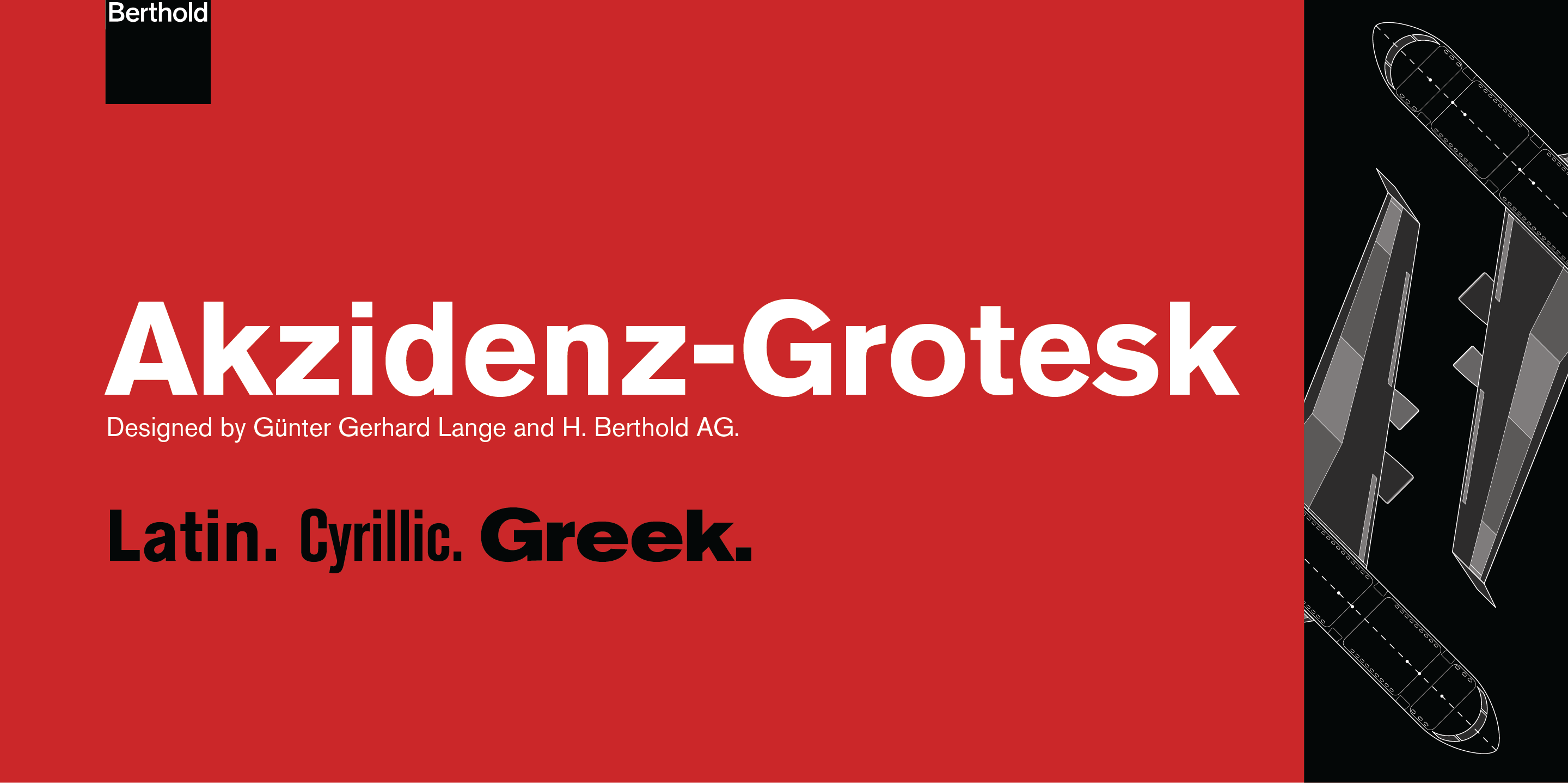
Akzidenz-Grotesk W1G Font Free Download is a modern sans-serif typeface with a classic, timeless design. Known for its versatility and clarity, this font is widely used in various design fields such as branding, editorial layouts, logos, websites, and signage. Akzidenz-Grotesk W1G brings an elegant, minimalist aesthetic with clean lines and balanced proportions, making it perfect for both print and digital applications.
With Akzidenz-Grotesk W1G Font Free Download, you’ll receive a complete set of uppercase letters, lowercase, numbers, and essential punctuation, providing flexibility for different creative uses. Whether you're working on a sleek logo, crafting a modern website, or designing professional marketing materials, this font ensures high readability and adds a refined, contemporary look to your designs.